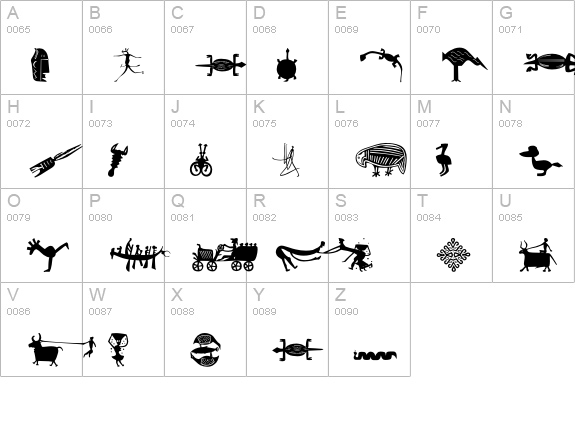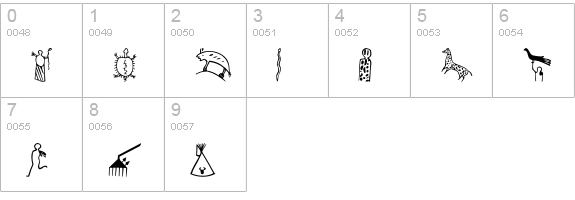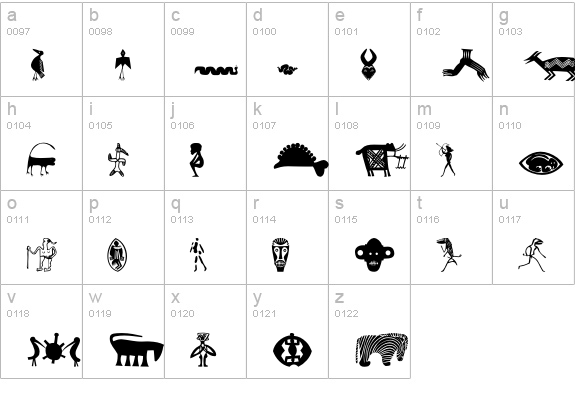
EthnoFontEF Font Details
EthnoFontEF is a captivating and unique font that beautifully blends traditional ethnic patterns with modern design aesthetics. Each letter is intricately crafted to evoke a sense of cultural richness and diversity. The intricate details and decorative elements of EthnoFontEF make it a truly eye-catching choice for projects that require a touch of exotic flair. What sets EthnoFontEF apart is not just its stunning design, but also the fact that it is completely free to download. Yes, you read that right - this remarkable font is freely available for use in both personal and commercial projects. You can easily access and download EthnoFontEF at FontsMarket.com, where you'll discover a wide range of other exquisite fonts to enhance your creative endeavors. Don't miss the opportunity to add a touch of cultural sophistication to your designs with EthnoFontEF - the perfect blend of tradition and modernity.